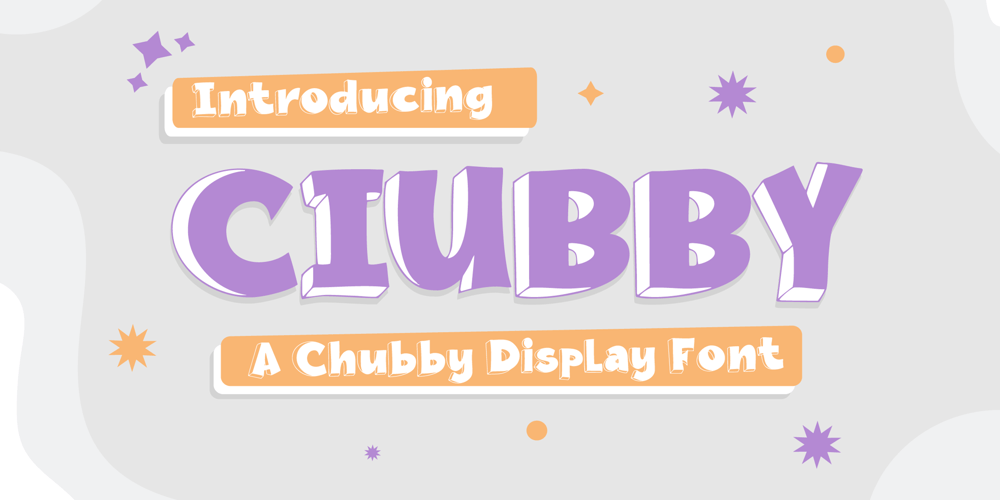
Ciubby Font Family was designed by Heri Imanudin and published by Krafted. Ciubby contains 2 styles and family package options. Looking for a fun display font that makes your design bold and original? A great 3D font can be a real head-turner, leaving standard fonts in the dust.Introducing Ciubby – A Chubby Display Font.From T-shirts to headlines, Ciubby is perfect for any type of project. It works equally well for web and print, allowing you to use it across your brand. Let’s get creative!What you’ll get: Multilingual & Ligature Support Full sets of Punctuation and Numerals Compatible with: Adobe Suite Microsoft Office KeyNote Pages Software Requirements: The fonts that you’ll receive in the pack are widely supported by most software. In order to get the full functionality of the selection of standard ligatures (custom created letters) in the script font, any software that can read OpenType fonts will work. We hope you enjoy this font and that it makes your branding sparkle! Feel free to reach out to us if you’d like more information or if you have any concerns.